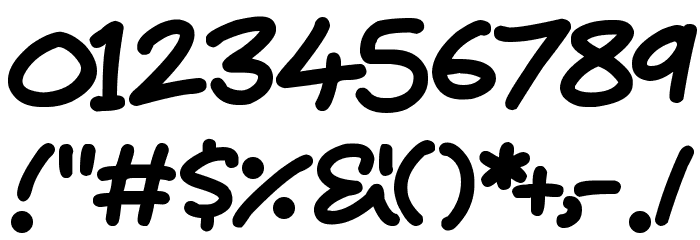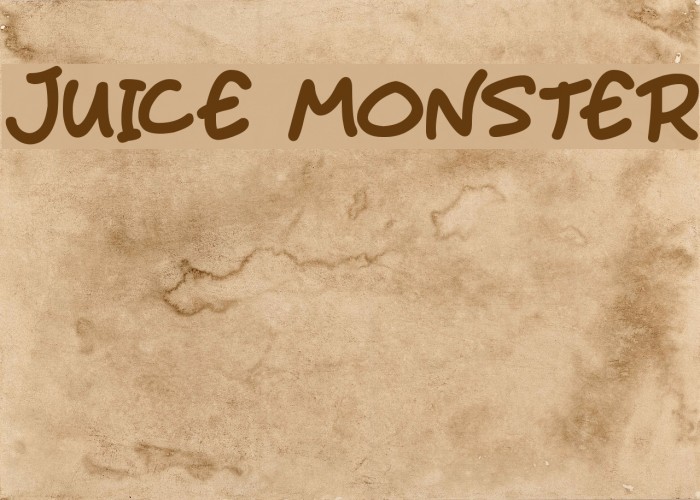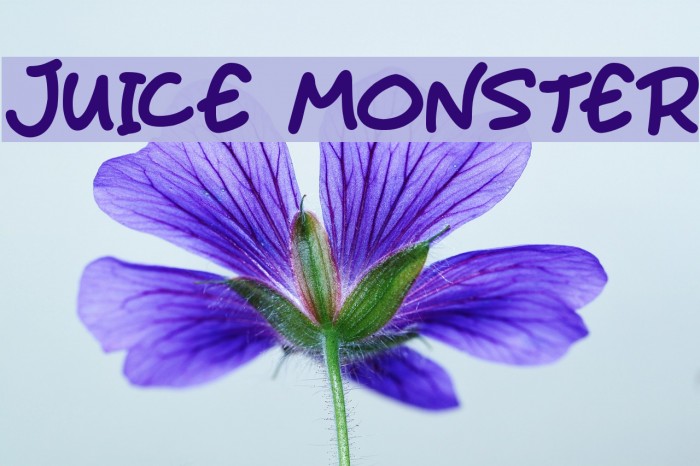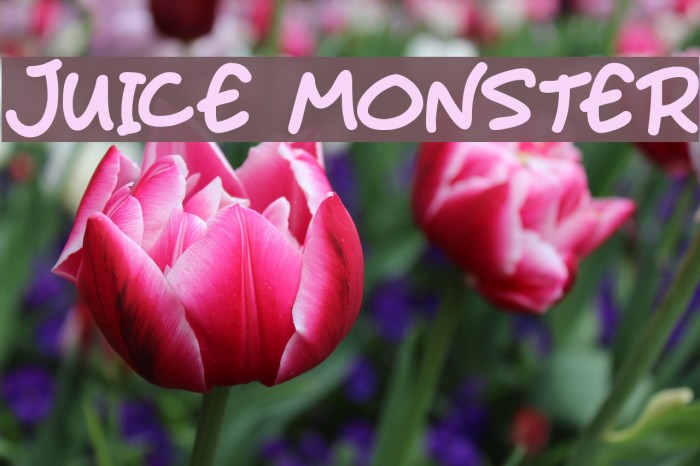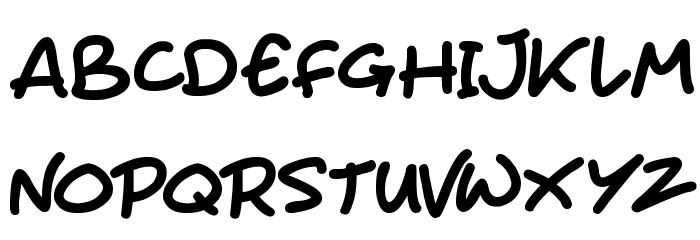
Juice Monster Font
This font features a playful and energetic style, characterized by its bold and rounded letterforms. The strokes are thick and consistent, giving it a strong presence on the page. Each character exhibits a slight slant, adding a dynamic and informal feel. The font maintains a uniform stroke width, contributing to its bold appearance. The spacing between characters is relatively tight, which enhances its compact and cohesive look. This font is well-suited for projects that require a fun and engaging aesthetic, such as children's books, posters, and branding for playful products.
A bold, playful font with rounded, slanted characters and tight spacing.
• Proposed Projects: Ideal for children's books, playful branding, posters, and informal invitations.
• Category: Decorative/Display
• Bold: Yes
• Italic: No
• Weight: Bold
• Width: Normal
• Character Spacing: Tight
• Contrast: Low
• Overall Style: Playful, Energetic
• Use Case: Headlines, Logos, Posters